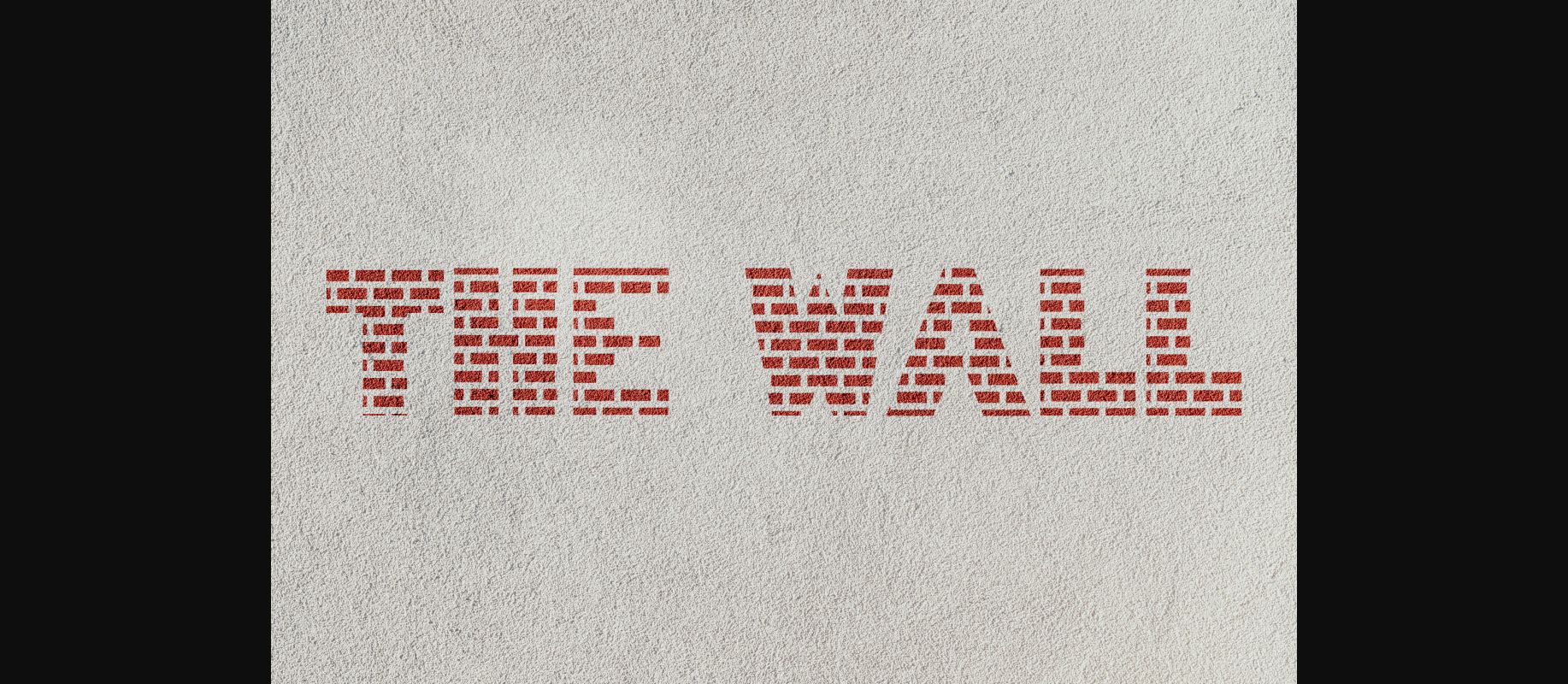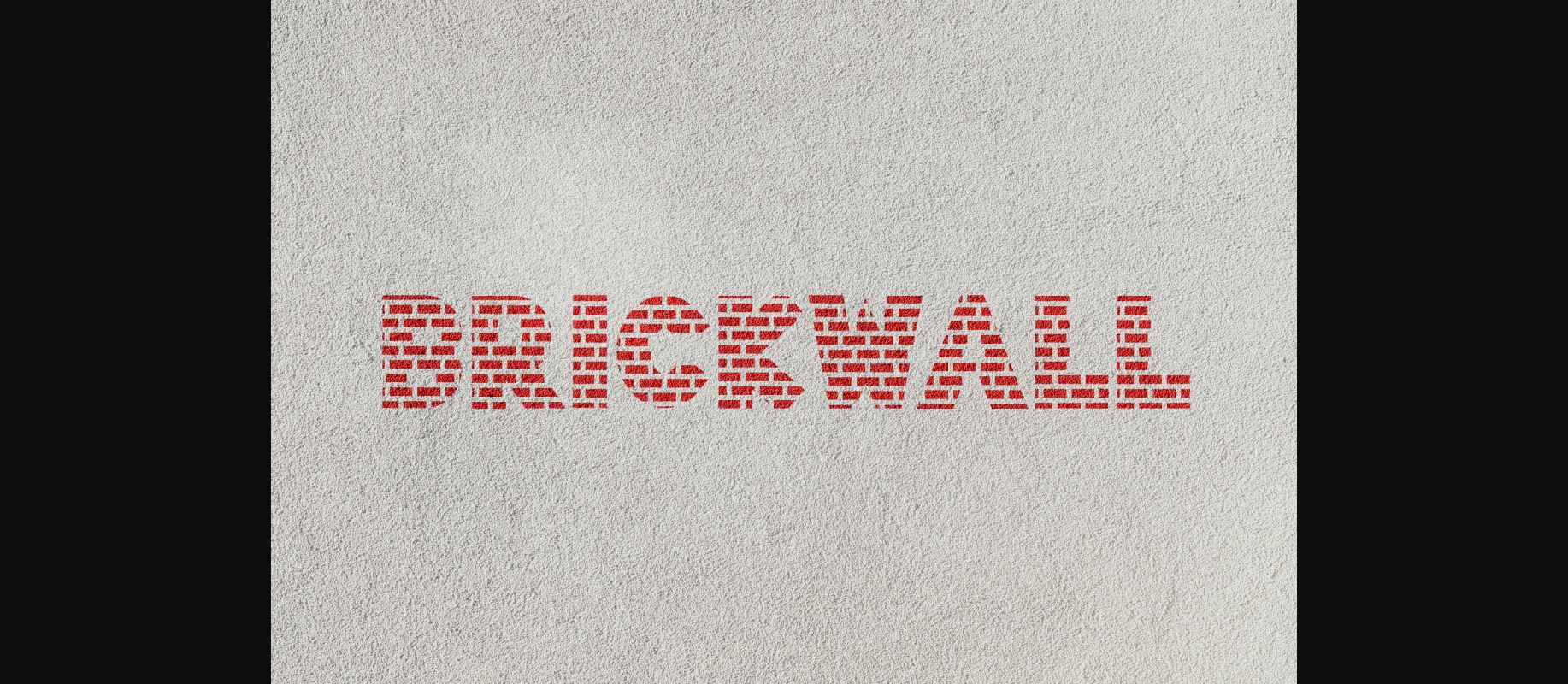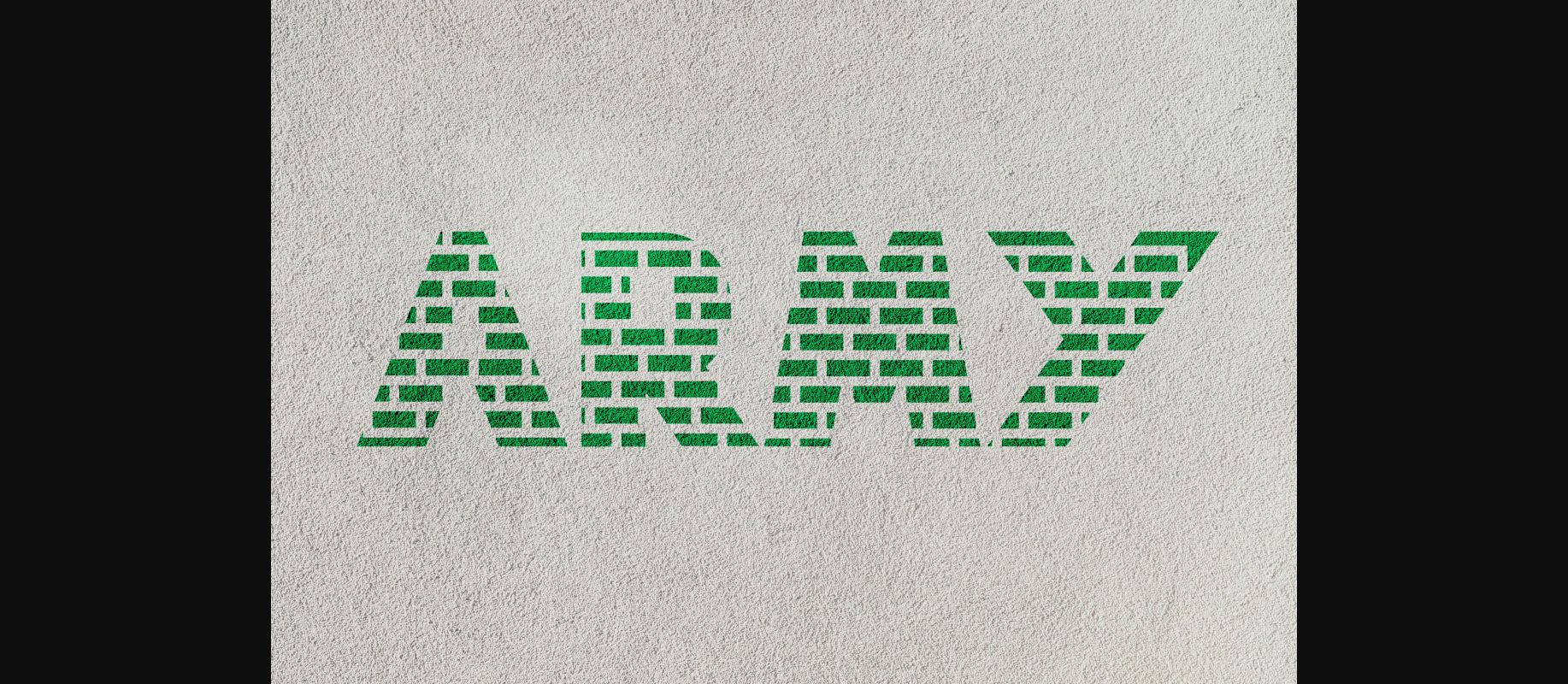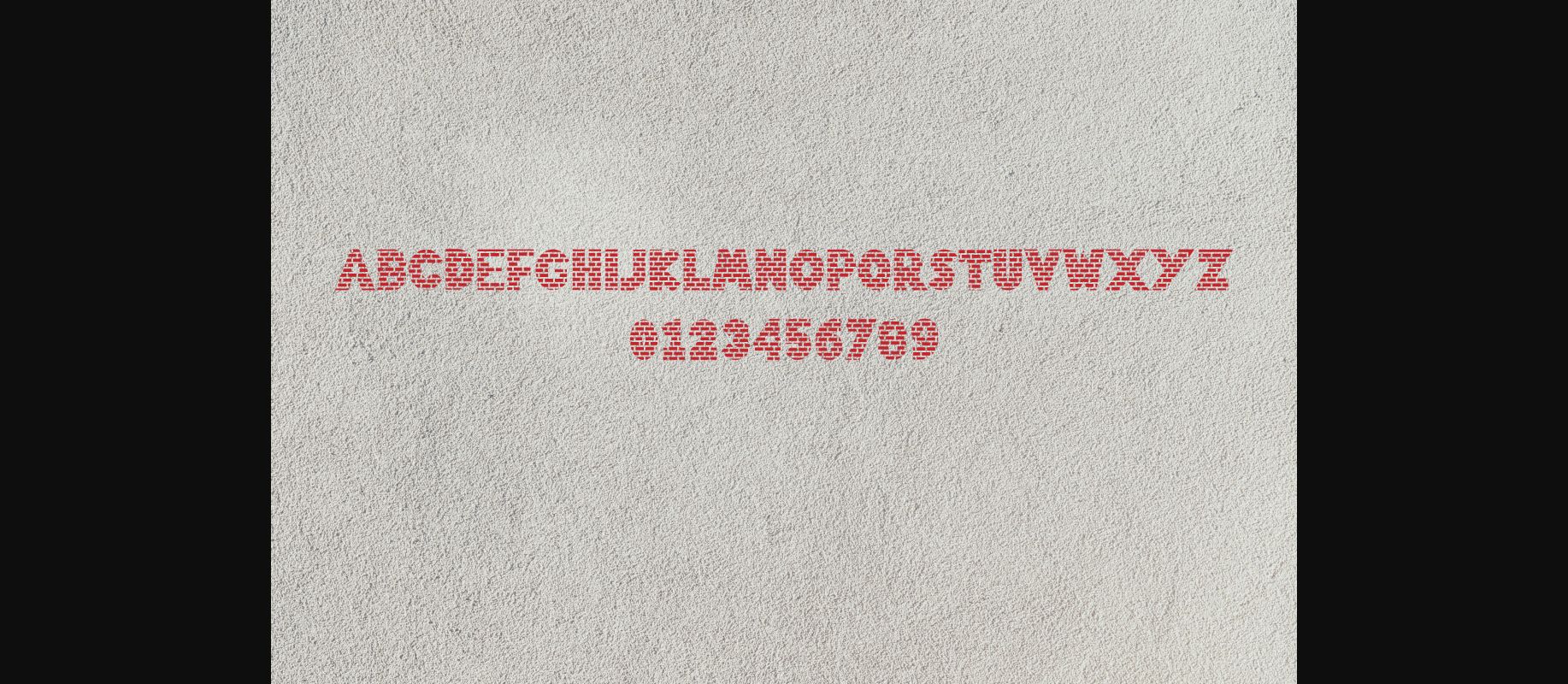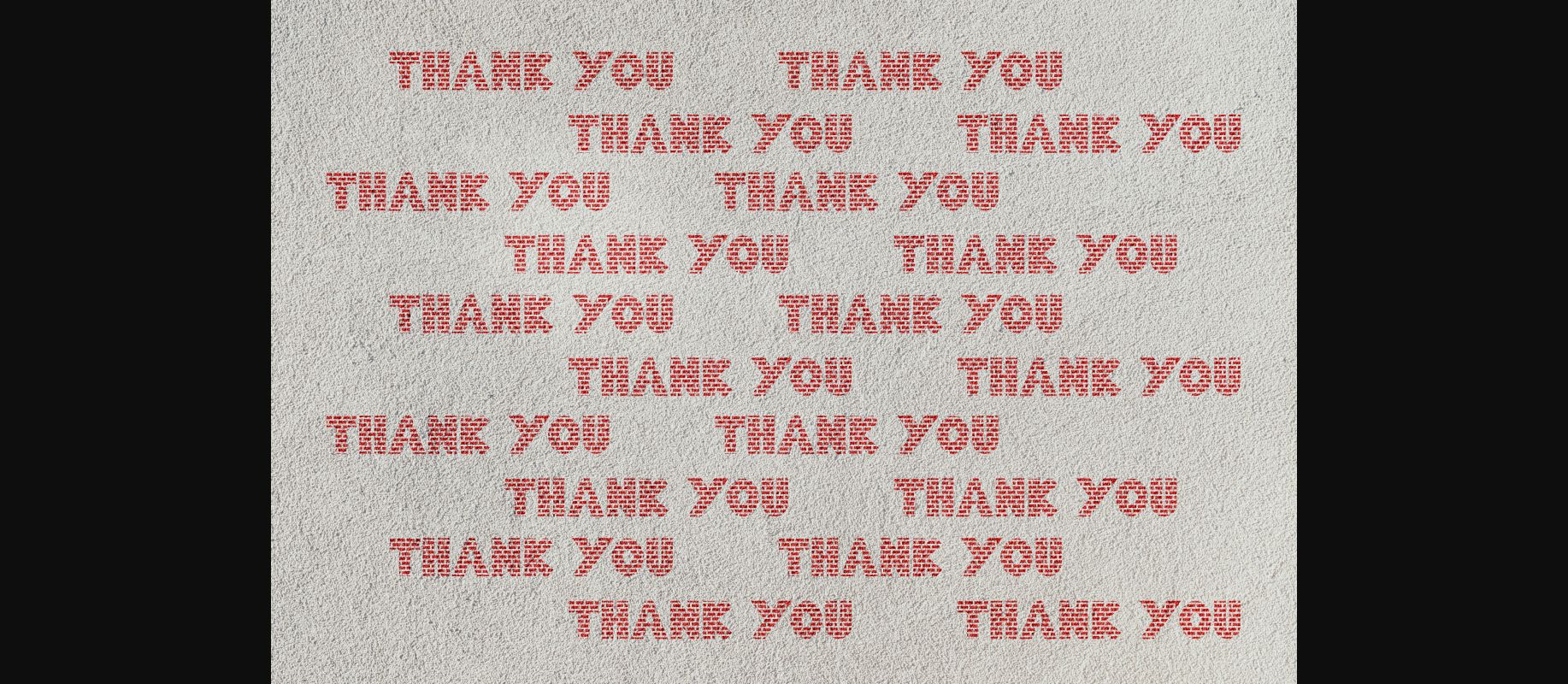
The Wall Font
About The Wall Font
The wall is an interesting decorative font featuring brick-styled characters for an awesome look! Use this creative typeface for construction companies, marketing materials, social media posts, and others!